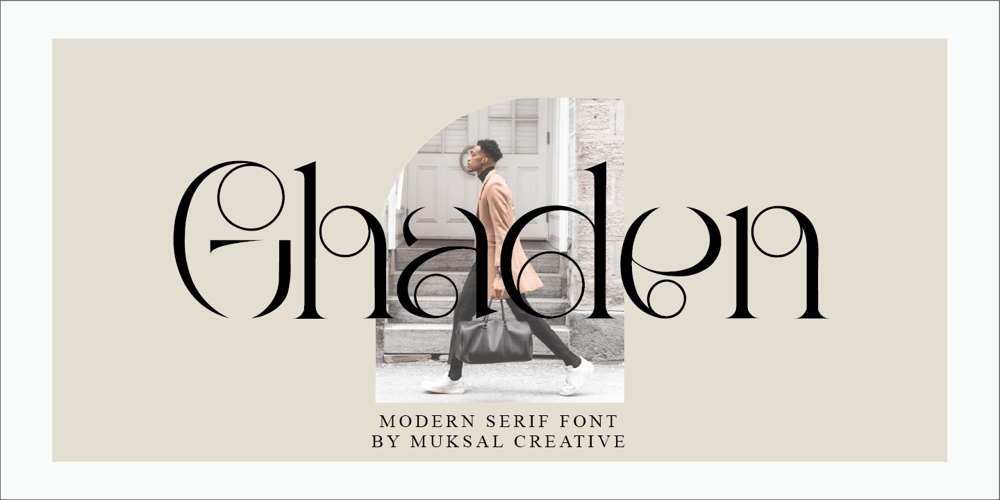
Ghaden
Ghaden font
Ghaden Font Family was designed by Muksalmina and published by Muksal Creatives. Ghaden contains 1 styles and family package options. Ghaden Modern serif typeface with beautiful alternete, special glyphs, ornament and multilingual support. It’s a very versatile font that works great in large and small sizes. Perfect for editorial projects, Logo design, Clothing Branding, product packaging, magazine headers, or simply as a stylish text overlay to any background image.